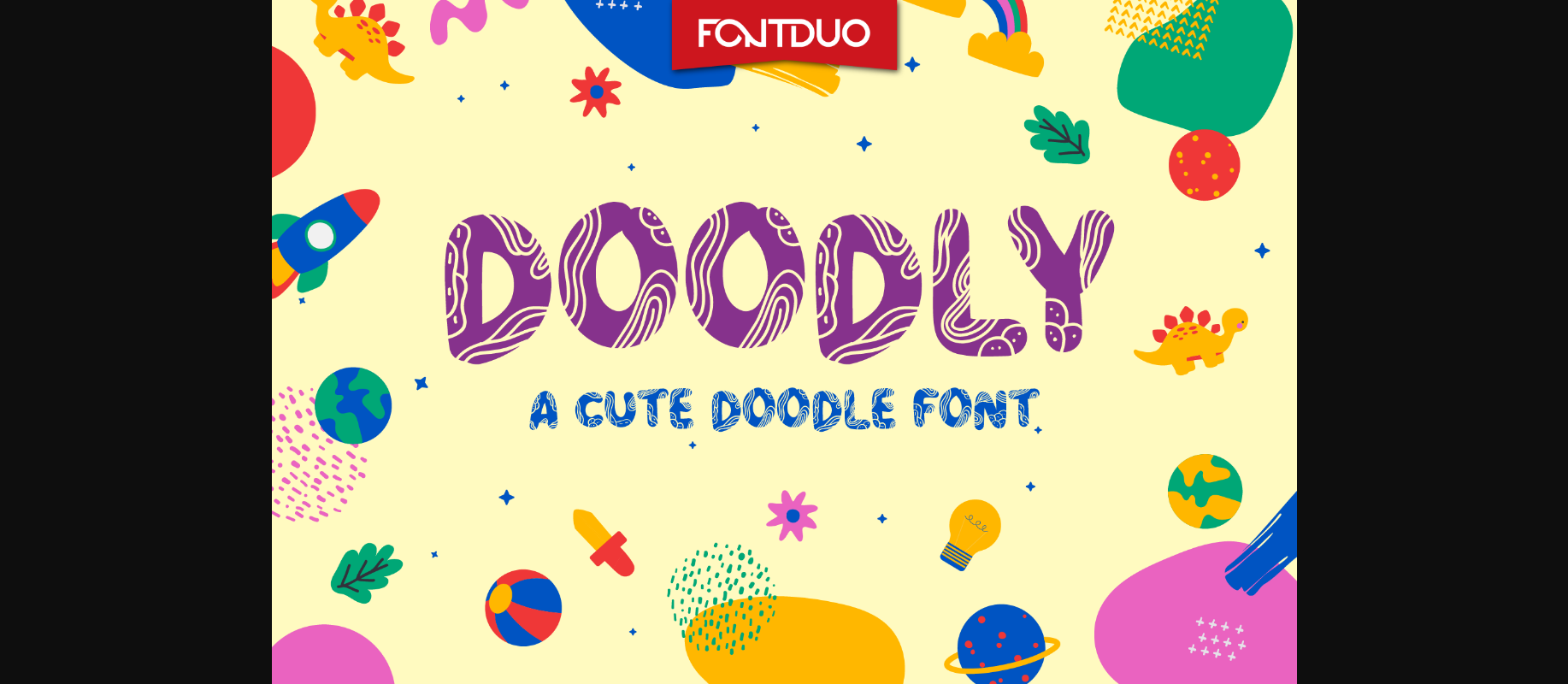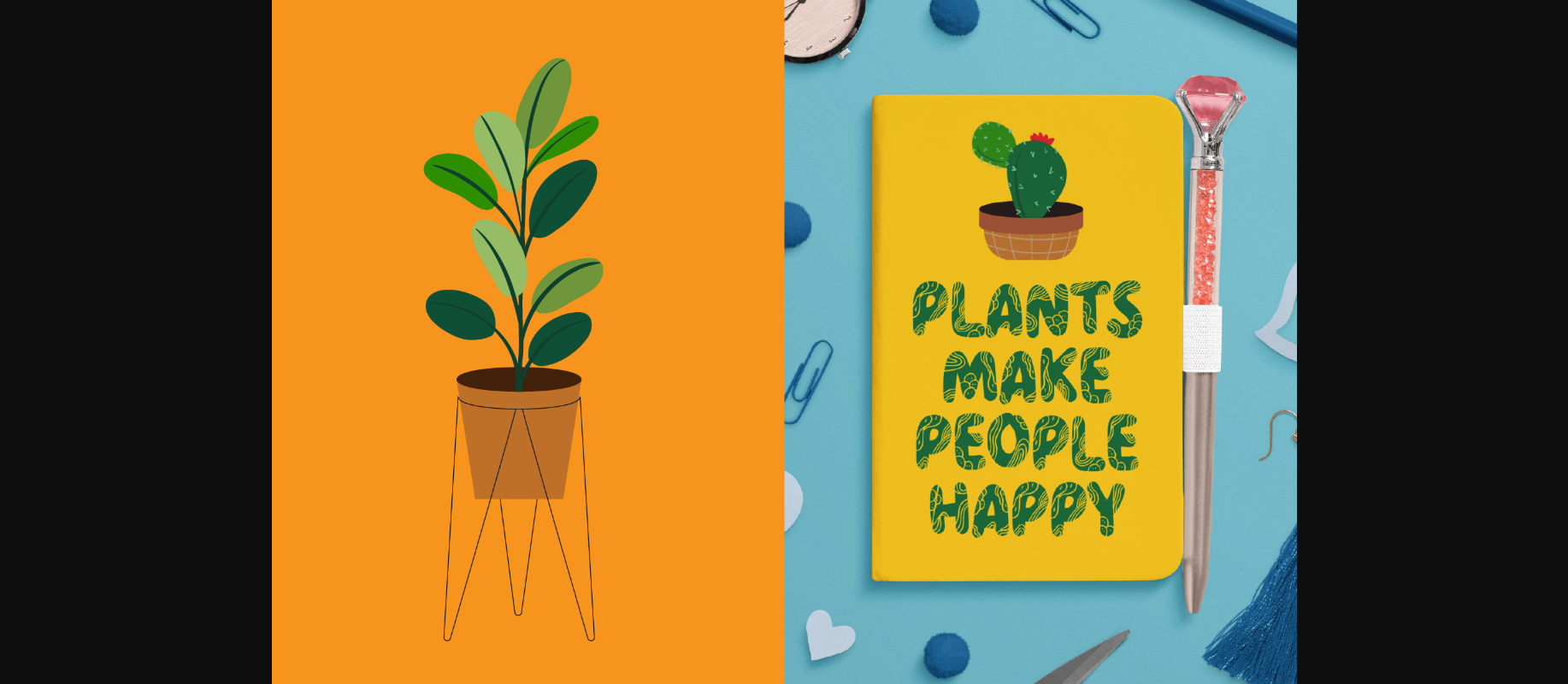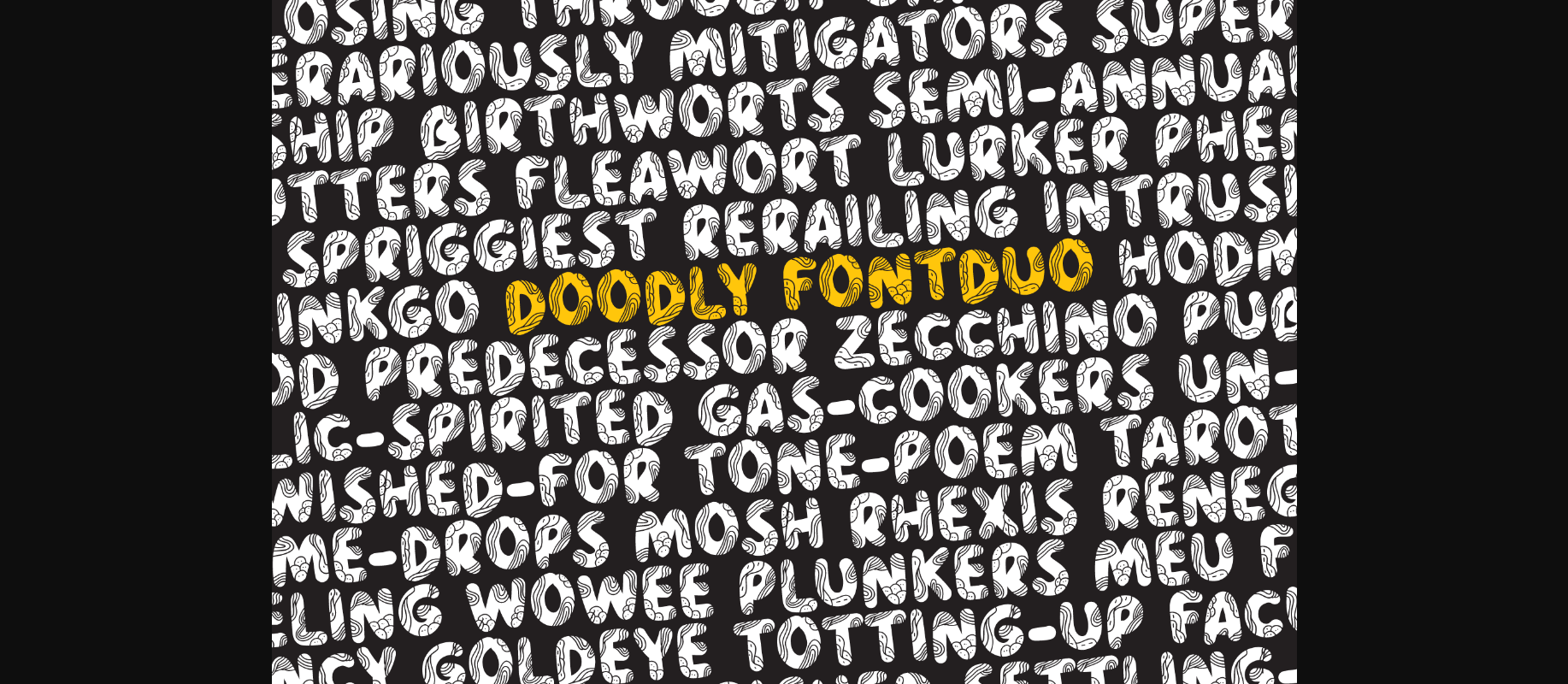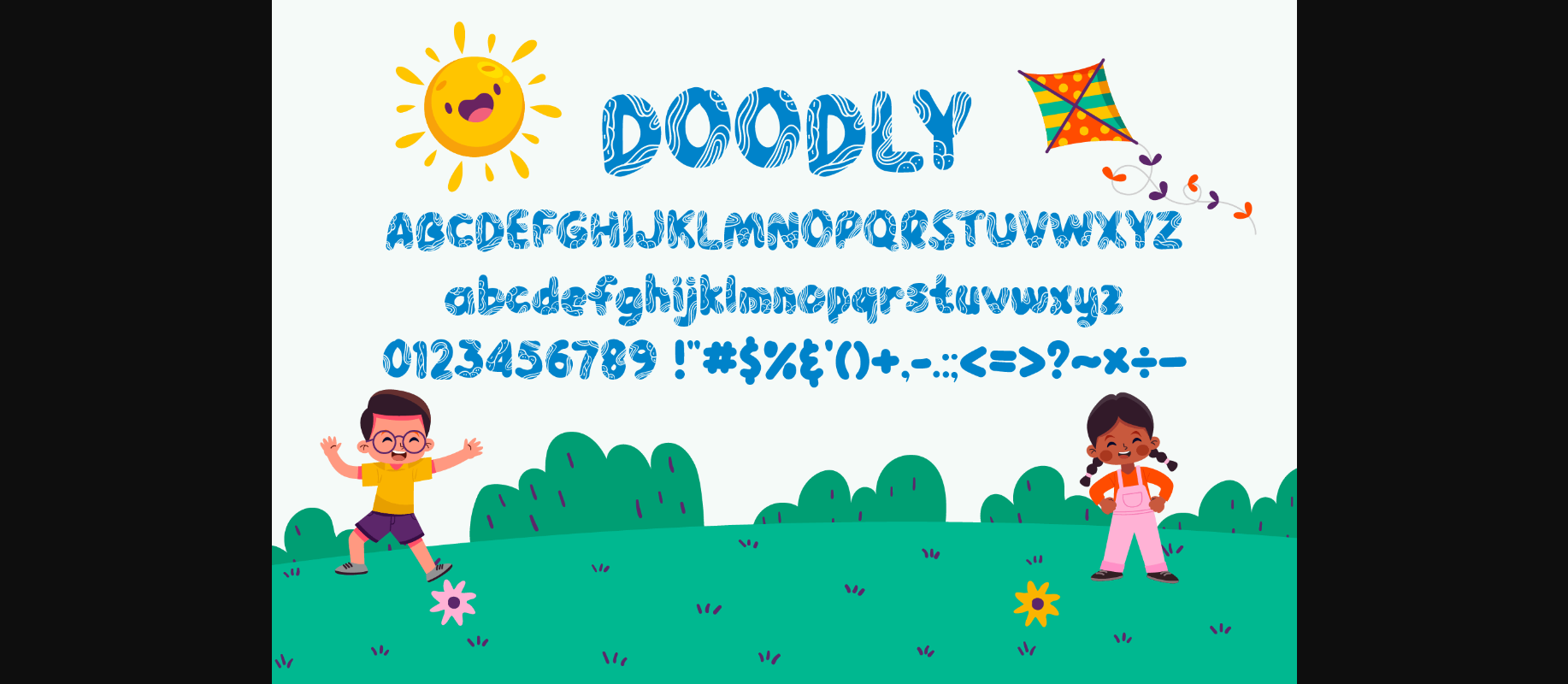
HomeDecorative FontsDoodly Font Decorative Fonts Doodly Font FacebookXPinterestWhatsApp 1 of 7 ... Doodly Font Poster 2... Doodly Font Poster 3... Doodly Font Poster 4... Doodly Font Poster 5... Doodly Font Poster 6... Doodly Font Poster 7... About Doodly Font Doodly is a fun and quirky decorative font. Playful and whimsical, this font will brighten up each of your designs. DOWNLOAD NOW People also explored Sympatic Font Signature Christmas Font Breezy Bolton Font Stuby Font Buttermilk Font White Triblend Bella Canvas 8413 Mockup Holiday Together Font Kimberly Script | 3 Style Aztec Font 271 0 TagsDoodlyDoodly Font Previous articleDino Zack FontNext articleSewing Clothes Font LEAVE A REPLY Cancel reply Comment: Please enter your comment! Name:* Please enter your name here Email:* You have entered an incorrect email address! Please enter your email address here Website: Save my name, email, and website in this browser for the next time I comment. Personal Use Free Klotee Personal Use Free Read more about this font Cataclysmo Personal Use Free Read more about this font Expaing Personal Use Free Read more about this font Alligator Font Personal Use Free Read more about this font BLOG Best Fonts for YouTube Videos: Make Your Thumbnails Stand Out Best Fonts for YouTube Videos: Make Your Thumbnails Stand Out Choosing the right font can make a massive difference in how your YouTube videos perform.... Fonts That Capture the Spirit of New York City Top 10 Handwritten Fonts That Elevate Your Designs Free Fonts Risk: Why Free Fonts Can Be Dangerous for Designers